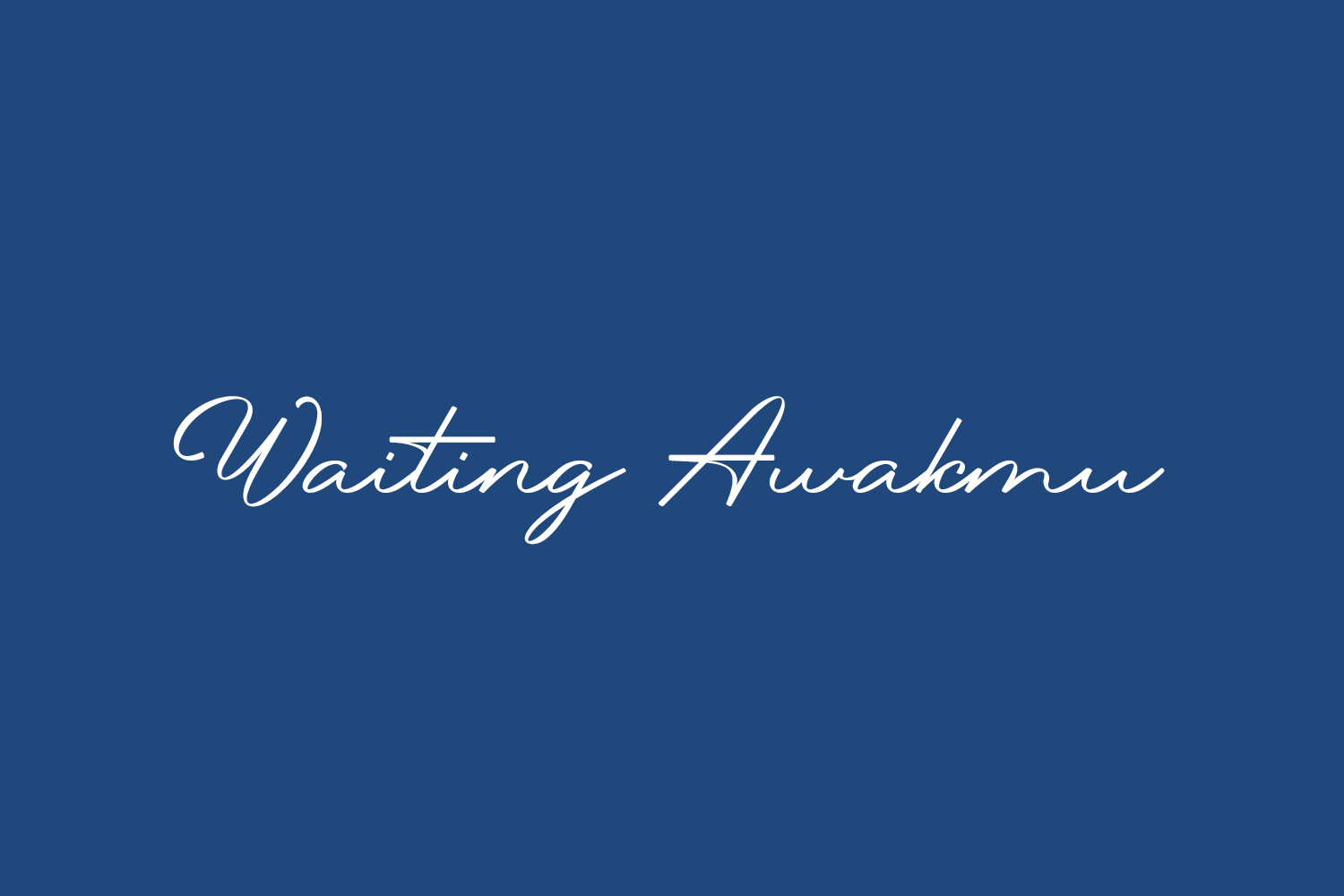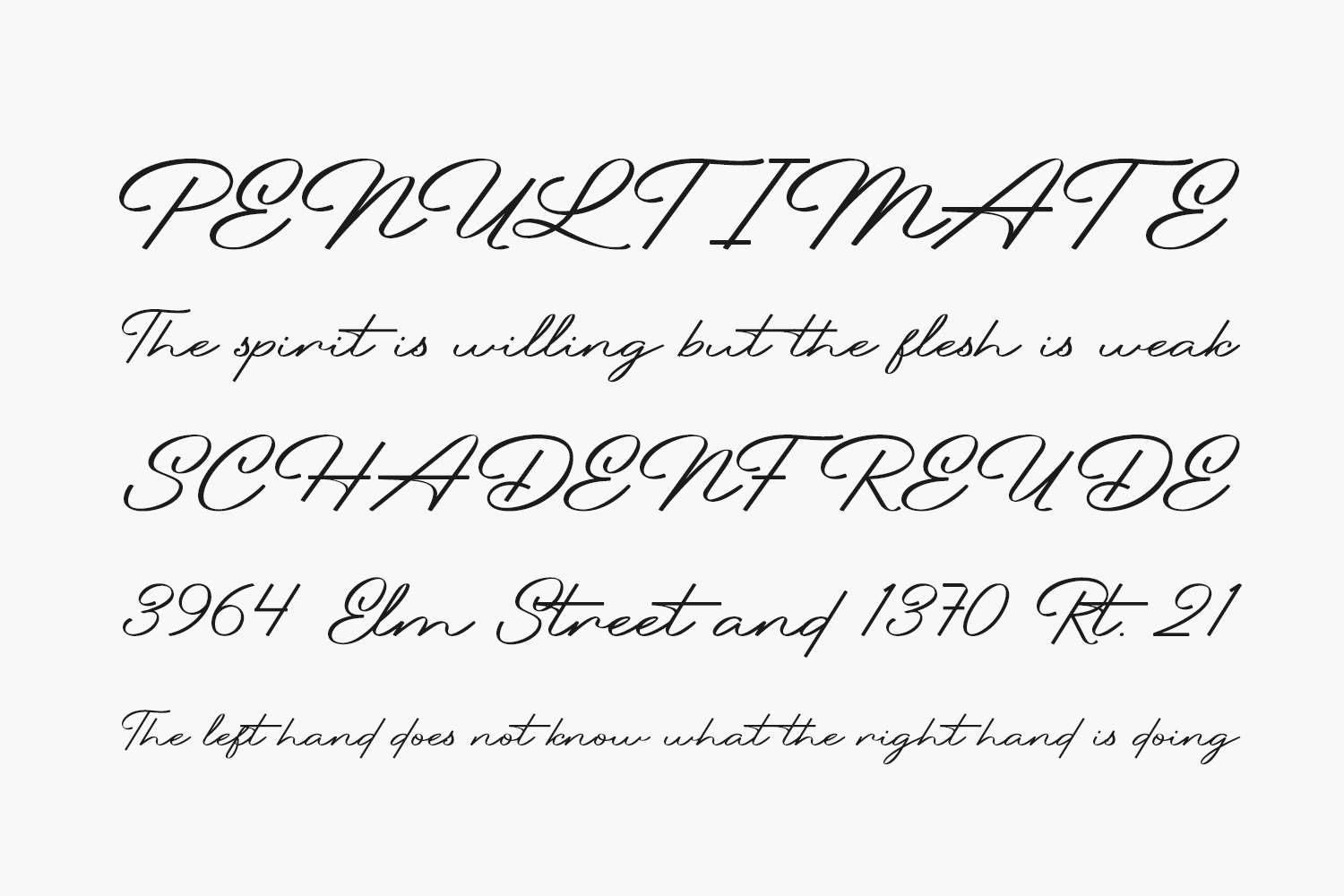
Introducing Waiting Awakmu Free Font, a sophisticated handwritten font that exudes class and elegance. With its stylish, graceful, and flowing design, this font effortlessly enhances the aesthetic of your creations while maintaining a grounded and natural feel. Elevate your projects with the timeless charm of Waiting Awakmu and watch them come to life with unparalleled beauty and refinement. Download the font for free if you need it for personal use or purchase the full version for commercial use.